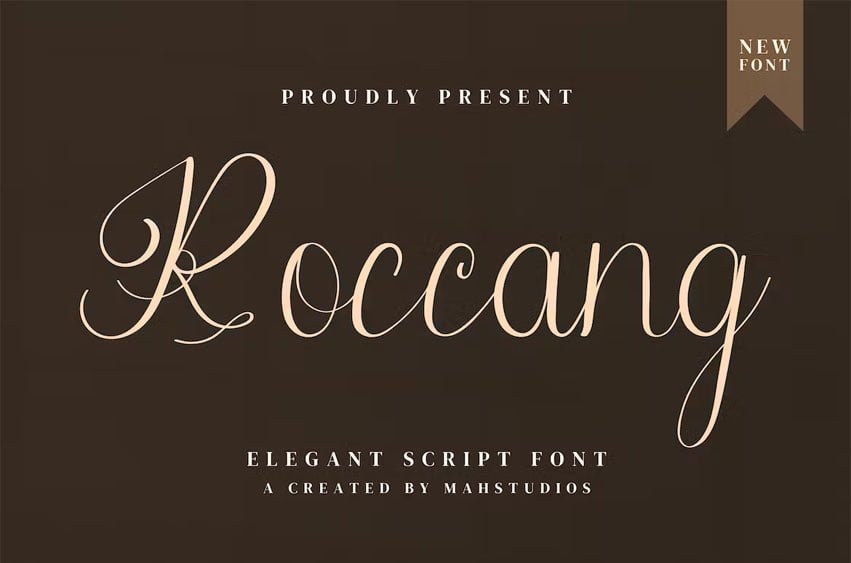
Roccang Font Elegant Script Font, from MAH Studios, is a premium Script Font, suitable for any luxury projects that need a premium signature taste.
Ligature, Alternate & Multilingu